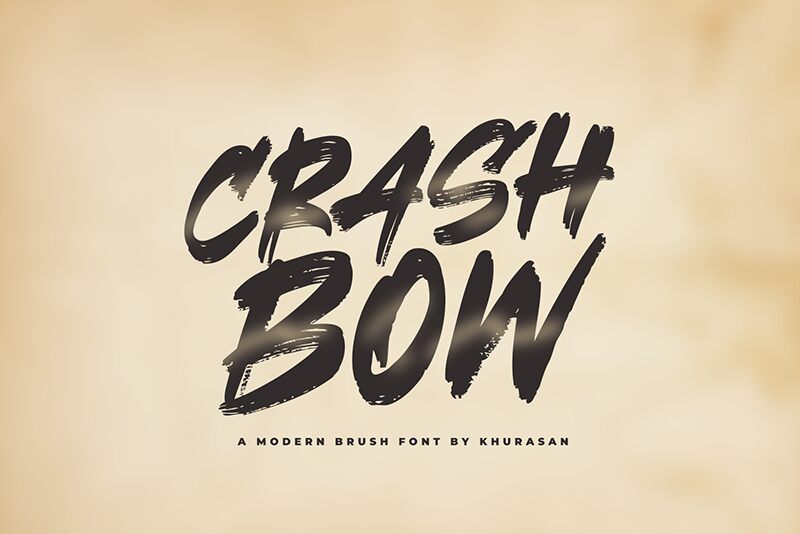
Crashbow
Crashbow by Khurasan is a brush bold font that packs an energetic impression in every letter of its design. Its characters reflect thick lettering with a rugged, slightly cracked surface and since they were drawn with brushes, they appear expressive as well. Pairing all its components together, Crashbow’s style has a modern dangerous feel to it.